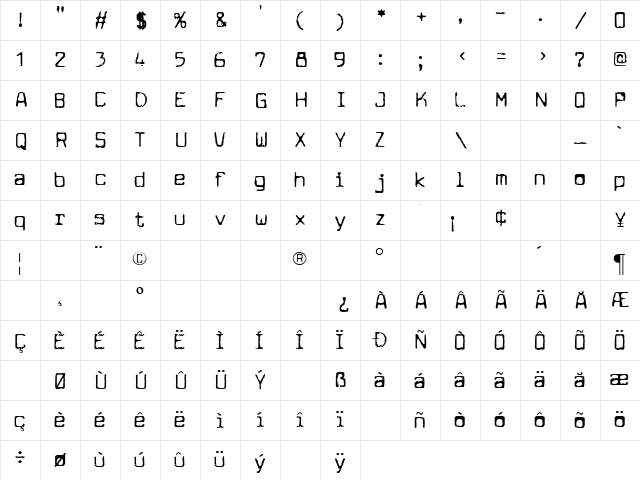
Cuomotype Regular Free Font
Cuomotype Regular
Foundry: Larabie Fonts
Design Context for Cuomotype
Cuomotype is a composed and adaptable typeface that performs quietly and consistently across a wide range of design contexts.